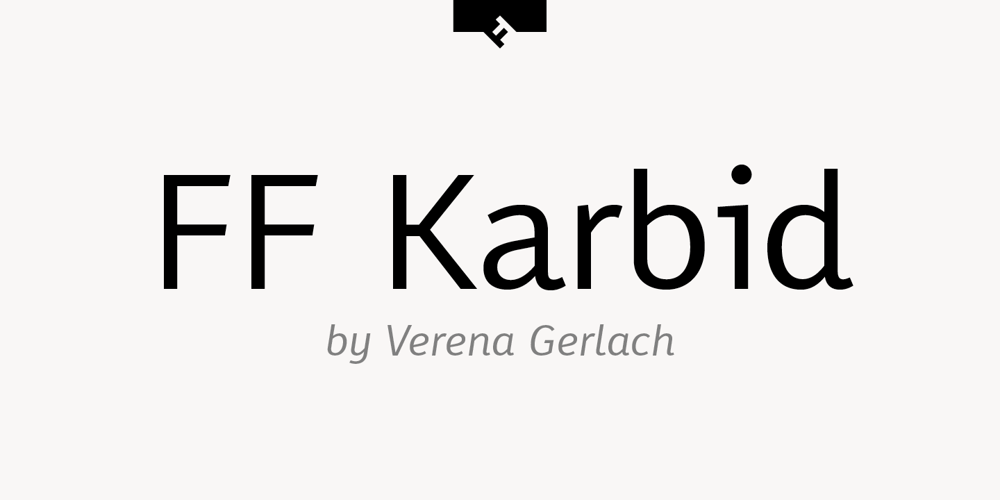
FF Karbid Font Family was designed by Verena Gerlach and published by FontFont. FF Karbid contains 10 styles and family package options. German type designer Verena Gerlach created this display and sans FontFont between 1999 and 2011. The family has 10 weights, ranging from Light to Black (including italics) and is ideally suited for advertising and packaging, editorial and publishing, logo, branding and creative industries, small text as well as web and screen design. FF Karbid provides advanced typographical support with features such as ligatures, alternate characters, case-sensitive forms, fractions, super- and subscript characters, and stylistic alternates. It comes with a complete range of figure set options – oldstyle and lining figures, each in tabular and proportional widths. This FontFont is a member of the FF Karbid super family, which also includes FF Karbid Display, FF Karbid Slab, and FF Karbid Text.